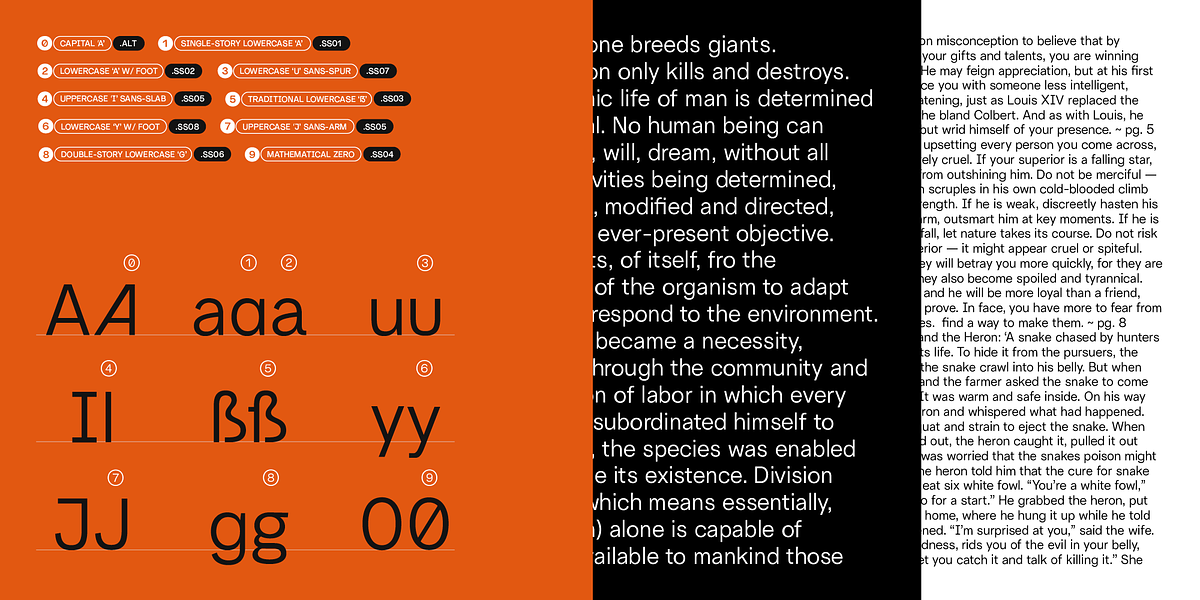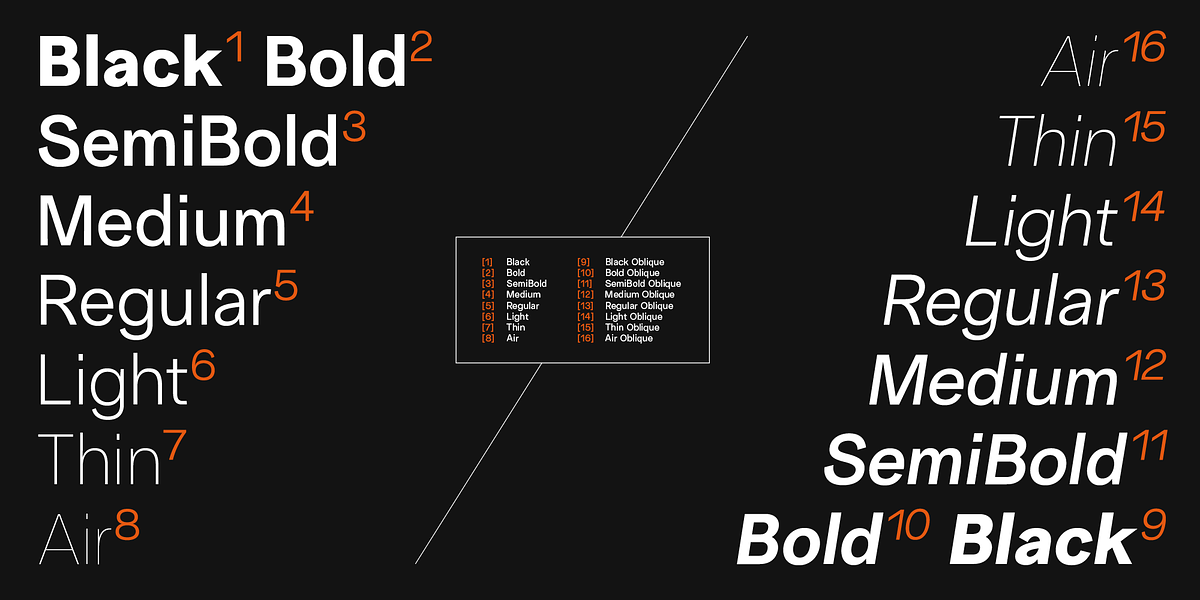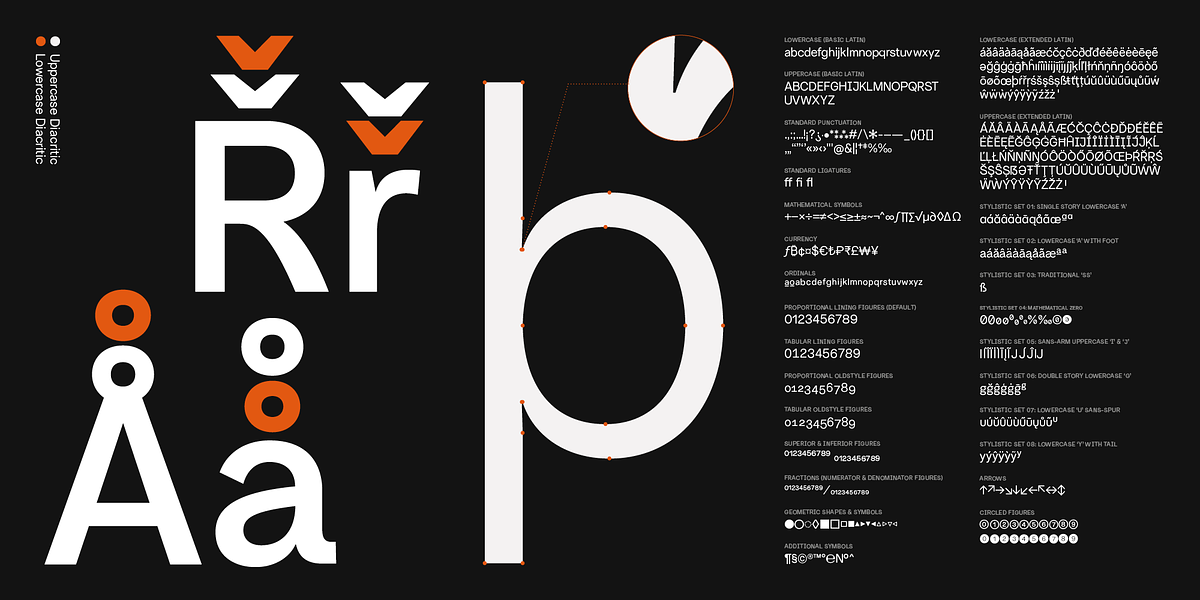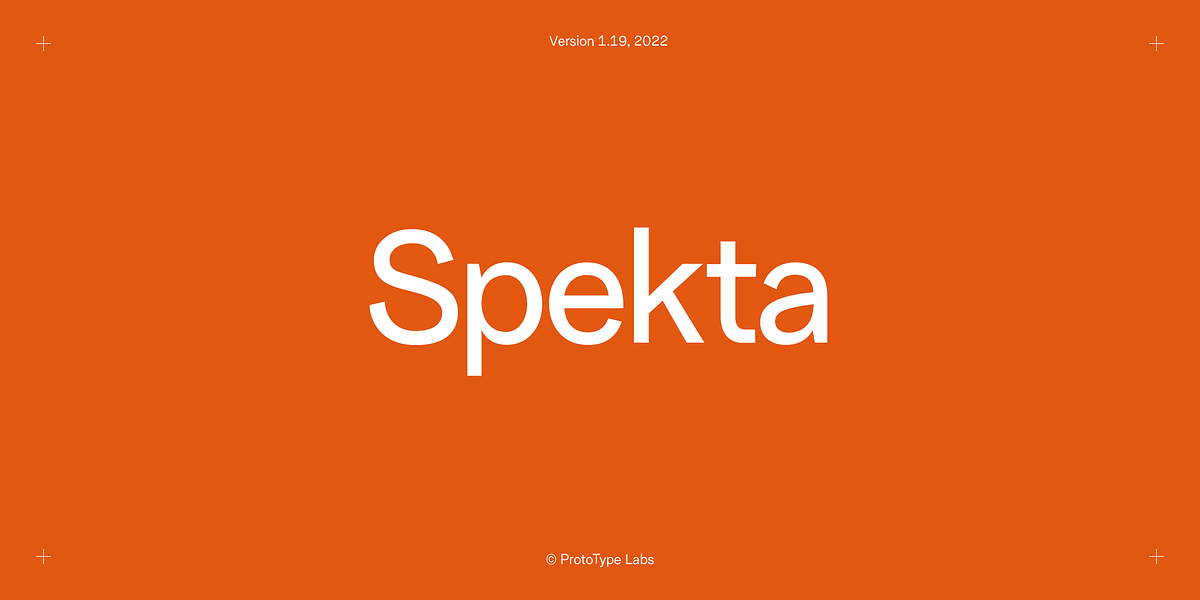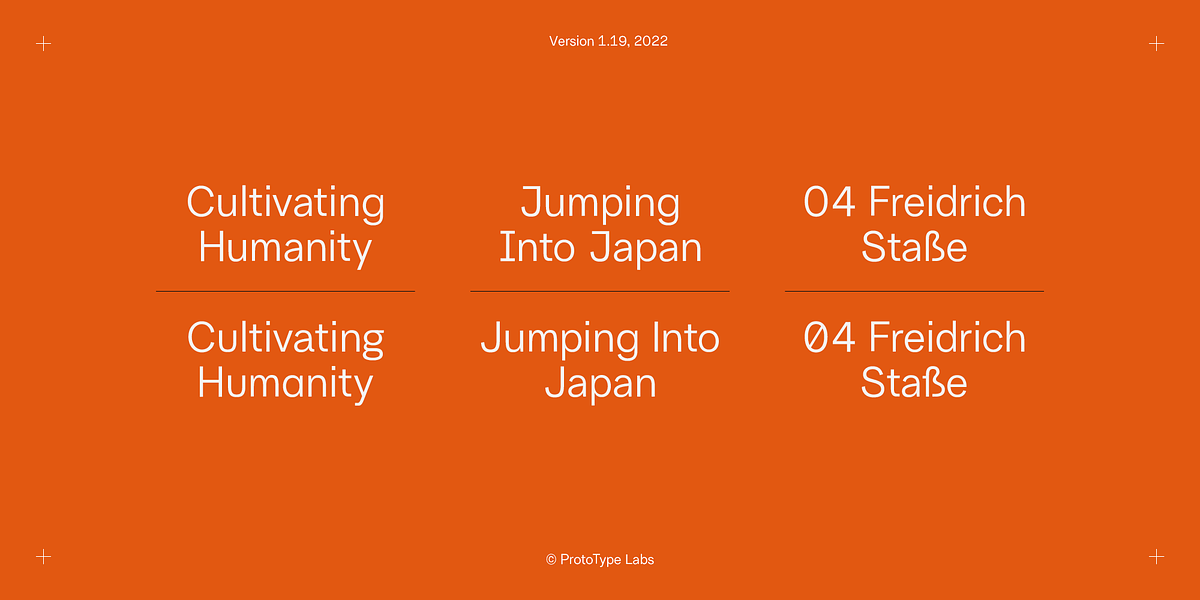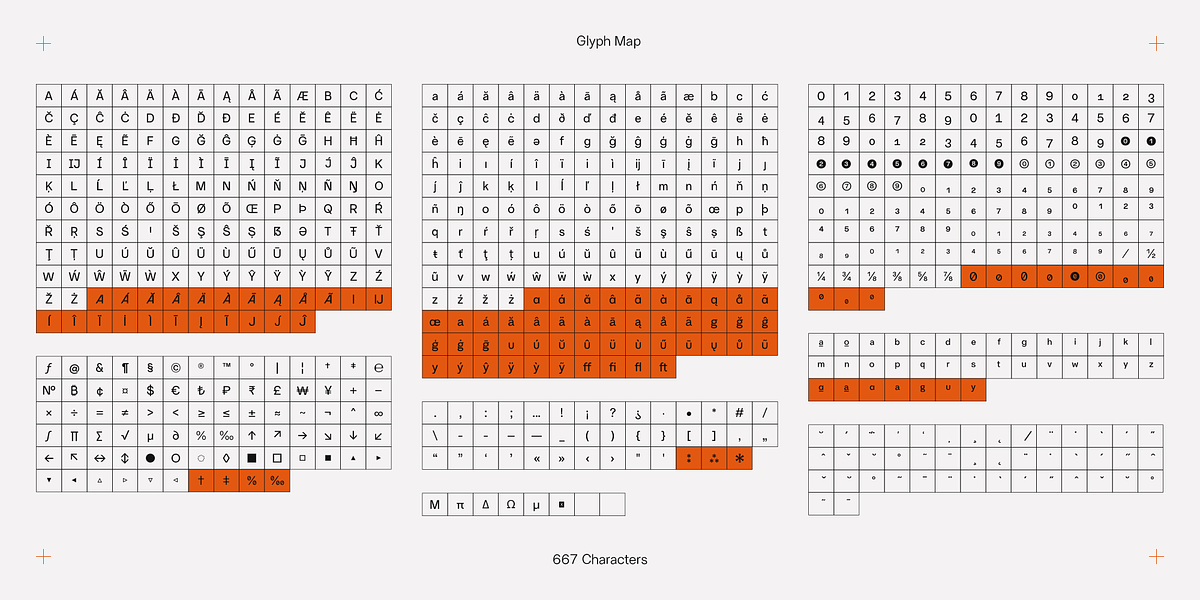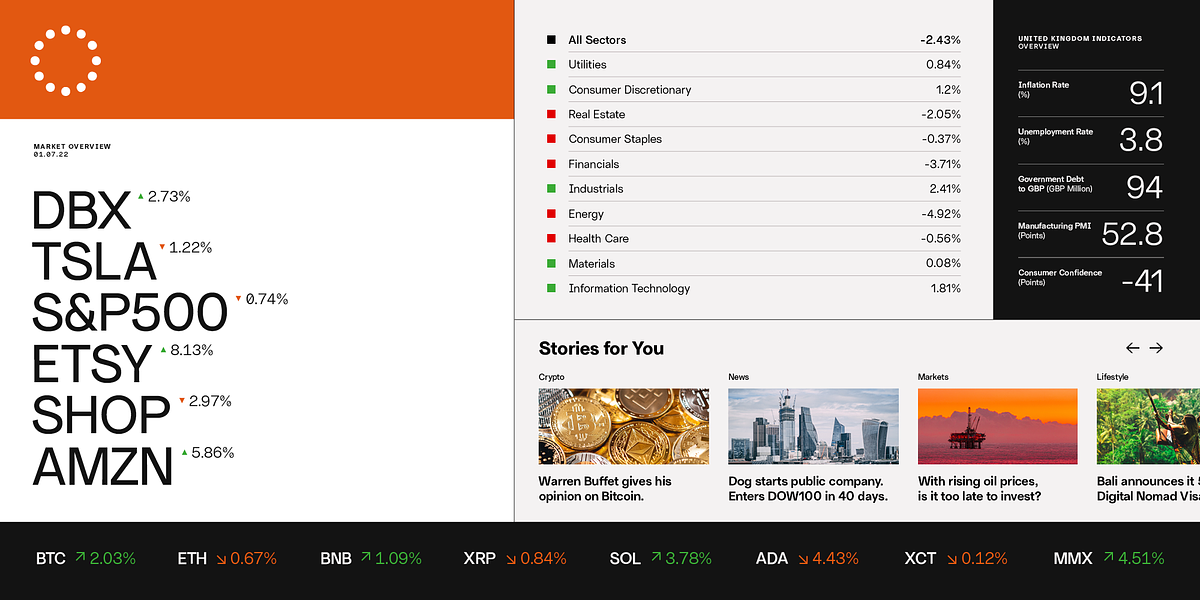
Spekta
Spekta is a neo-grotesque sans serif typeface designed for versatility and readability. Originally conceived as an all-caps display font, it evolved into a full-featured 8-weight family with italics. Its condensed proportions and distinct x-height and cap height differences enhance legibility at smaller sizes while conserving horizontal space. Spekta draws inspiration from Bauhaus and early grotesque forms, resulting in elegant and well-balanced letterforms. It offers an extensive range of features, including stylistic sets, multiple number sets, true superscript and subscript characters, ordinals, alternative characters, and full-width characters.